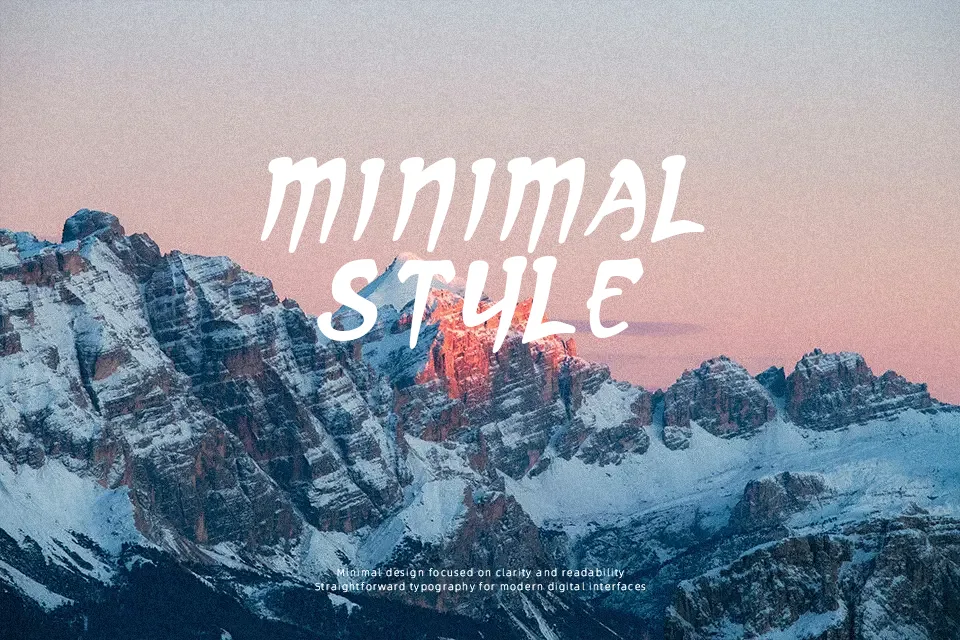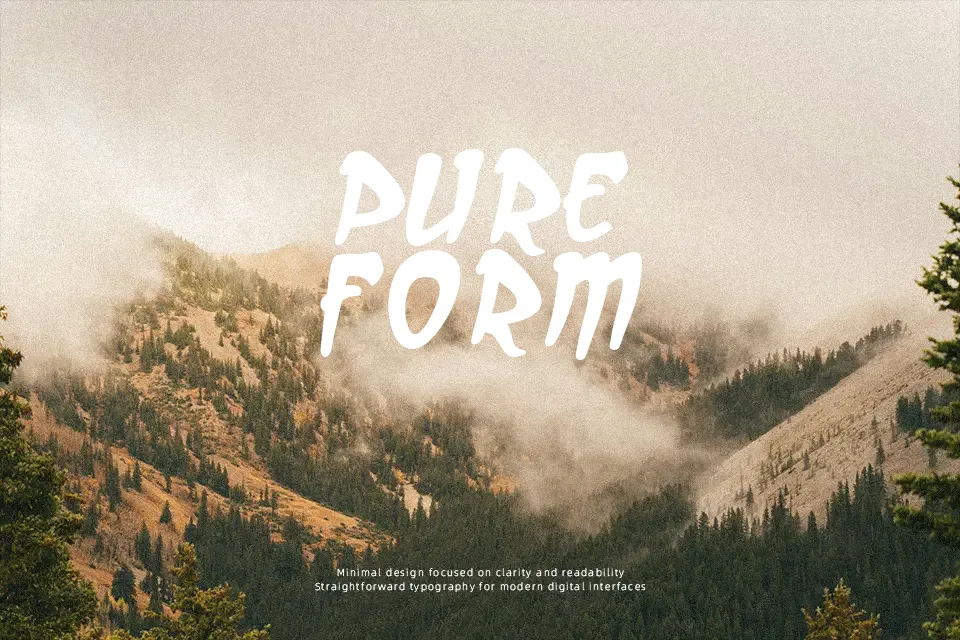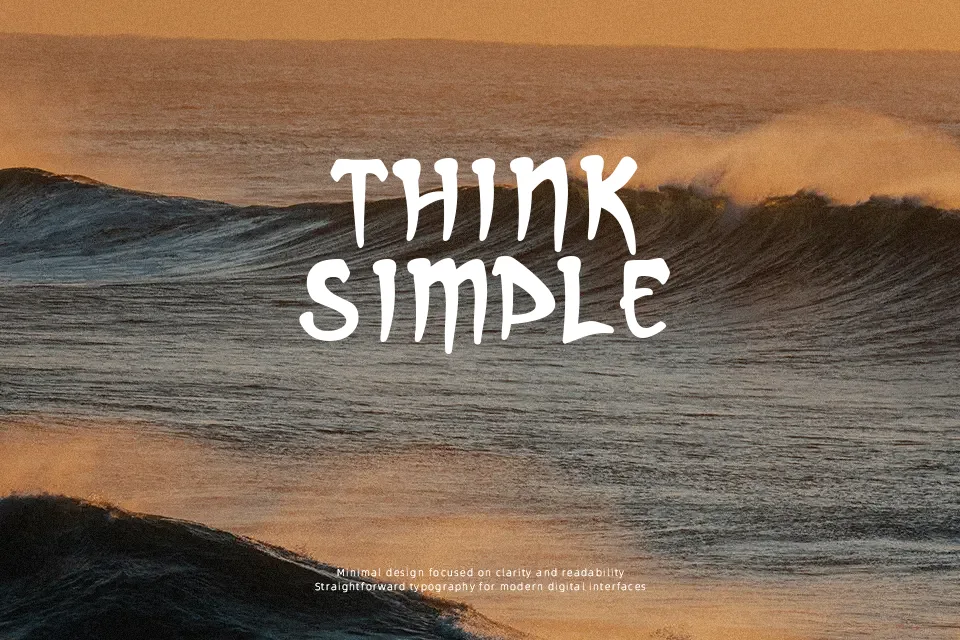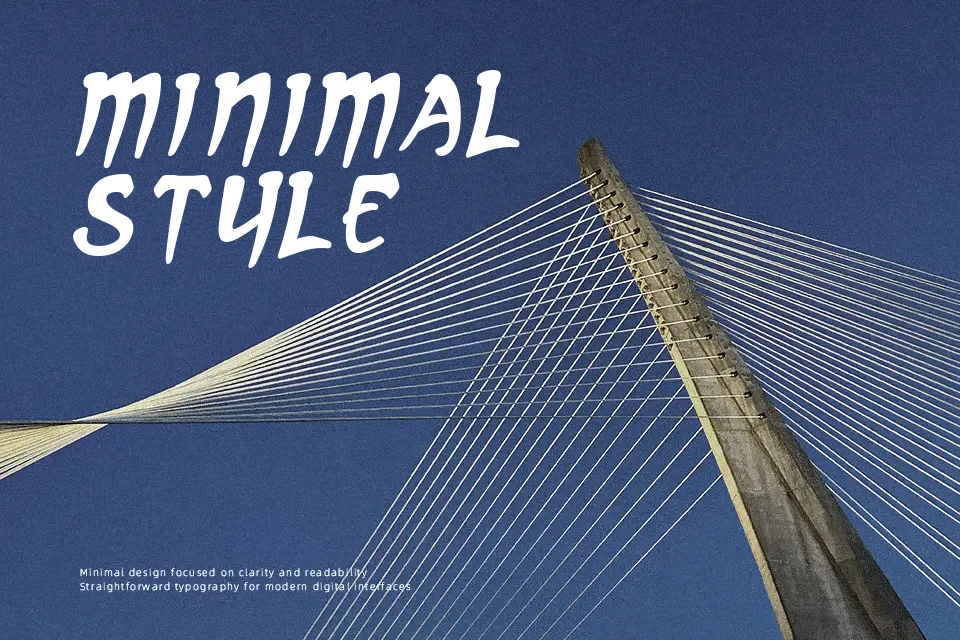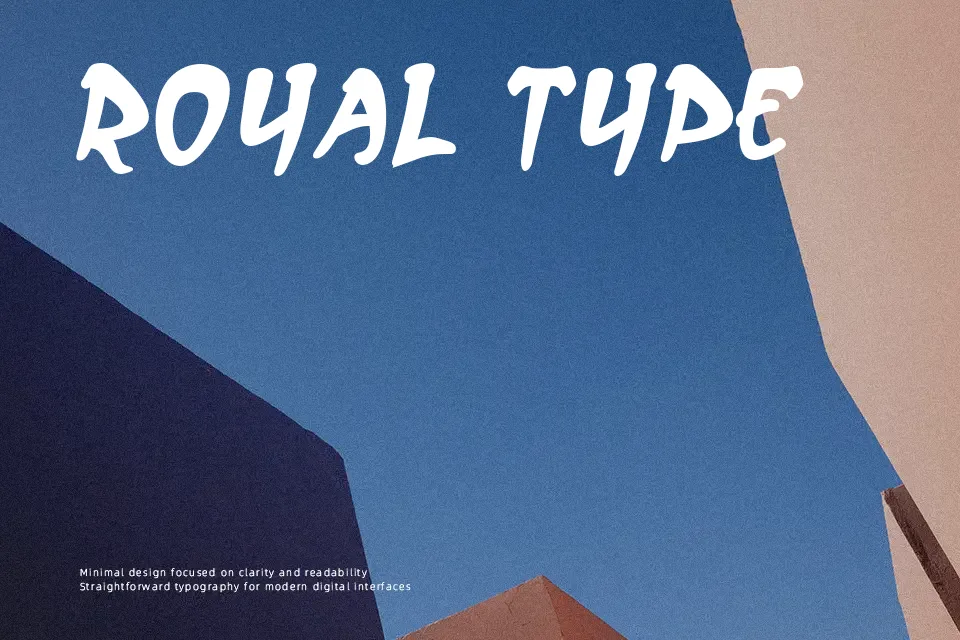
Arcanum Font
Designed by Blambot
Arcanum carries the weight of a hand-inked comic book page — its strokes are deliberate, slightly uneven, and distinctly non-mechanical. The letterforms have moderate contrast with a casual boldness that sits somewhere between comic lettering and fantasy title design. It works well for graphic novel chapter headings, tabletop RPG materials, and indie game UI labels where personality matters more than polish. The regular, italic, and bold variants give it enough flexibility for short bursts of styled text. That said, legibility drops quickly at small sizes, and it is unsuitable for running body copy or anything requiring neutral tone. If you need a font that feels handcrafted without going full grunge, Arcanum delivers — but don’t expect it to carry corporate design work.
Best For:- Indie comic book panel headers
– Fantasy or tabletop RPG title cards
– Graphic novel chapter openers
– Zine and alternative publication covers
Not Ideal For:- Body text or long-form reading
– Corporate branding or professional reports
– Small-size UI labels where legibility is critical
– Minimalist or editorial design projects
Perfect for editorial, film, and gaming, with a bold and comic style.